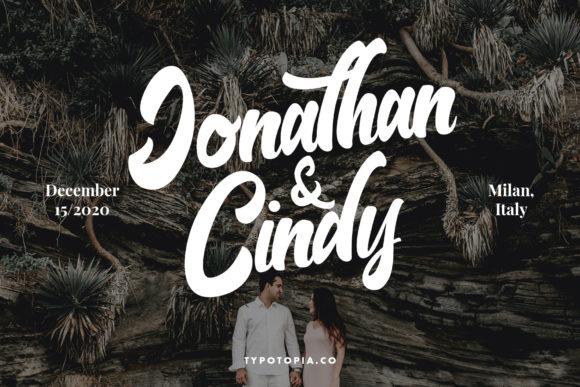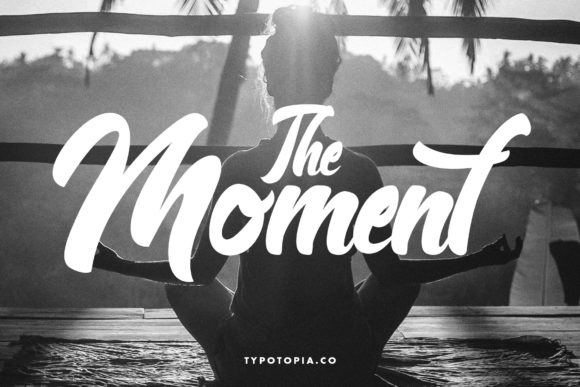
Voldory Font
db-ku.com - Script & Handwritten -- Voldory is a cursive, chic and round lettered script font. This paint brushed font will instantly make your designs more approachable and beautiful. The only limit is your imagination.